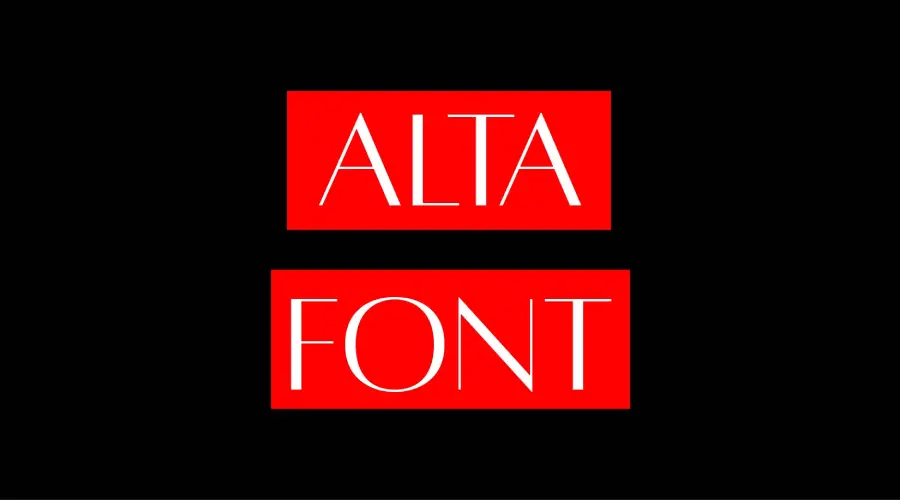
Alta font is a sans-serif typeface based on Hermann Zapf‘s original Optima typeface. It is elegant, versatile, and inspired by the classics. And today we will learn everything about this font. So, let’s dive in.
About Alta Font and Its Designer
Alta font was designed and published by Aaron Amar, a graphic designer and typographer from Indonesia. He created Alta as a tribute to Hermann Zapf, one of his favorite type designers. Zapf was famous for his humanist sans-serif typefaces, such as Optima, Palatino, and Zapfino.
This font is available in three weights: Regular, Light, and Caption, each offering a distinct feel and appearance.
Alta Regular font is the standard weight of the Alta font family. It is perfect for body text and headlines. It has a balanced contrast and medium stroke width. It is ideal for general text and display purposes.
Alta Light font is a thinner version of Alta Regular font. It has low contrast and thin stroke width. It is perfect for large headlines and titles that need to stand out.
Alta Caption font is designed for small print sizes. It has a larger X-height and more open counters to ensure text clarity and readability. It has high contrast and thick stroke width. It is designed for small text and captions that need to be readable at small sizes.
All weights of Alta font support multi-language characters, including Latin, Greek, Cyrillic, Arabic, Hebrew, Thai, Vietnamese, and more. They also include stylistic alternates and ligatures that can be accessed through OpenType features. So you can use them in your design without worry.
And it is a versatile typeface that can work well with different design styles and themes. You can also use it on logos, headlines, posters, magazines, books, websites, and more.
Alta font is a sans-serif all-caps display humanist typeface. It’s a blend of history, design, and versatility. Whether you’re a designer looking to elevate your creations or a brand aiming to stand out, Alta Font is the way to go.